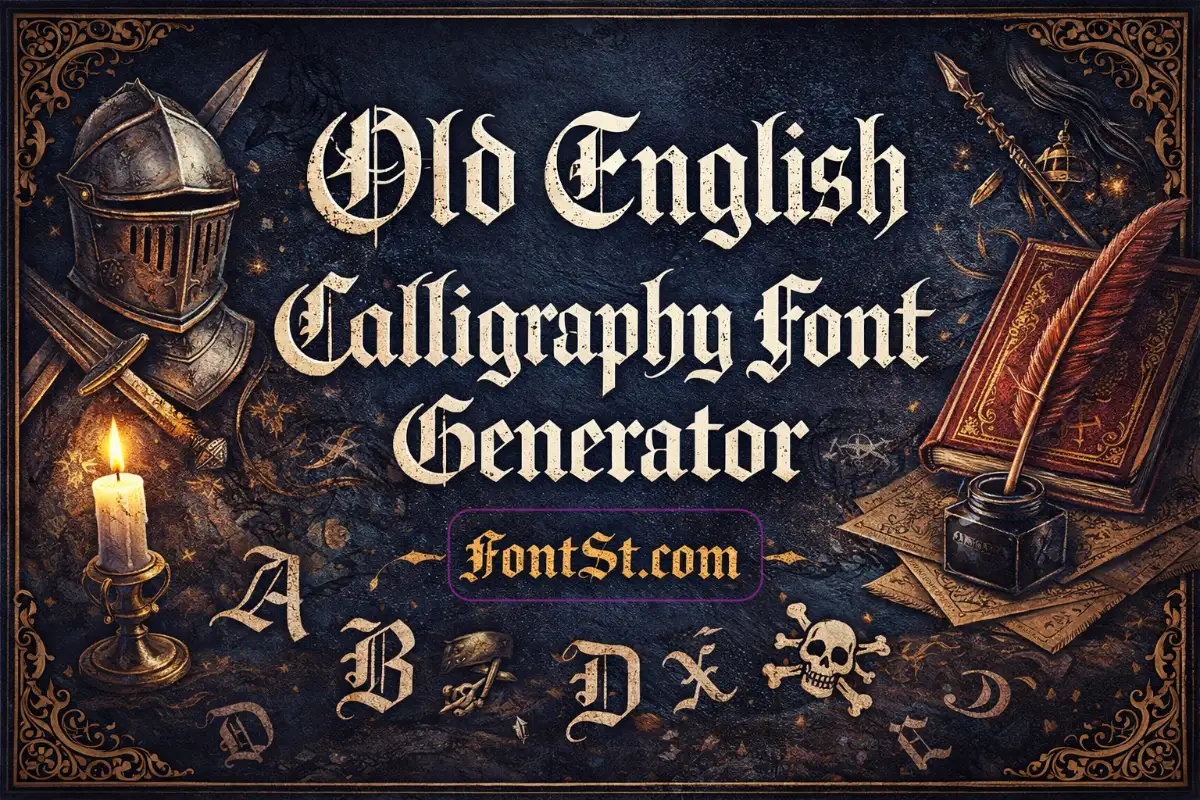
Type your text into FontSt’s generator to instantly create an ancient English font style look with a classic, old-world vibe. Choose your favorite style and Copy & Paste it for bios, captions, titles, and fantasy-themed mockups.
Ancient-style lettering is perfect when you want a timeless, historical vibe for titles, bios, fantasy names, and design mockups. Use Font St below to generate an Ancient English look instantly, then Copy & Paste your favorite style anywhere.
An ancient English font usually refers to a historic-looking lettering style that feels medieval, classical, or manuscript-inspired. People use it when they want text that looks “from another era”—often with decorative strokes, vintage rhythm, and a formal or fantasy tone.
This style works well for:
Fantasy character names and world-building titles
Medieval or vintage headers
Roleplay bios and themed captions
Logo drafts for historical themes
Book-cover style mockups and posters
“Ancient font” can mean many different historical looks depending on the culture and era. Below are the most common directions people search for, with a simple idea of how each style is typically used.
Ancient Egyptian Font
Egyptian-inspired lettering is often used for themed titles and aesthetic designs. It usually feels bold, geometric, and “temple-like.”
Best for:
Poster titles, event banners, themed edits
Short words with strong shapes
Ancient Greek Font
Greek-inspired typography often emphasizes classical, carved-letter vibes—clean, balanced, and scholarly.
Best for:
Academic aesthetics, mythology themes, title cards
Names and short phrases that should remain readable
Ancient Roman Font
Roman-style fonts are the classic “stone inscription” look: strong capitals, clean spacing, timeless structure.
Ancient Chinese–inspired typography is often brush-like and calligraphy-driven. It’s powerful visually, but readability depends on the style and the exact characters used.
Ankh-themed styles are usually decorative, symbol-forward, and “Egyptian spiritual” in tone. They’re often used as a visual motif rather than a long text font.
Best for:
Logos, icon-style typography, symbolic designs
Short words combined with symbols
Ancient Hebrew Font
Ancient Hebrew–inspired typography is typically used for cultural, historical, or themed designs. Like other script-based looks, it often works best for short display text.
An ancient-looking font is any style that visually suggests an older era—stone inscriptions, medieval manuscripts, classical titles, or calligraphic scripts. The best one depends on whether you want “carved,” “handwritten,” or “symbolic.”
Ancient Medium Font
“Ancient medium font” usually describes a medieval manuscript vibe that’s readable and not overly ornate. If your text is longer, choose a medium-detail ancient style so it stays clear on small screens.
Ancient Script Font
Ancient script fonts mimic handwritten historical writing. They look elegant, but they work best with short phrases and good spacing.
An ancient text font is meant for display—titles, headers, and mockups—rather than long paragraphs. For longer text, pick a cleaner ancient typeface with open shapes.
Ancient Writing Font
Ancient writing fonts emphasize a “written by hand” feel. To keep it readable, use fewer words, avoid extra symbols, and preview it on mobile.
Ancient Calligraphy Font
Ancient calligraphy fonts feel premium and crafted. Use them for one-word titles, names, and short mottos—especially when you want elegance.
Ancient Cursive Font
Ancient cursive fonts are softer and flowing. They’re ideal when you want an old-world vibe but need better readability than heavy decorative styles.